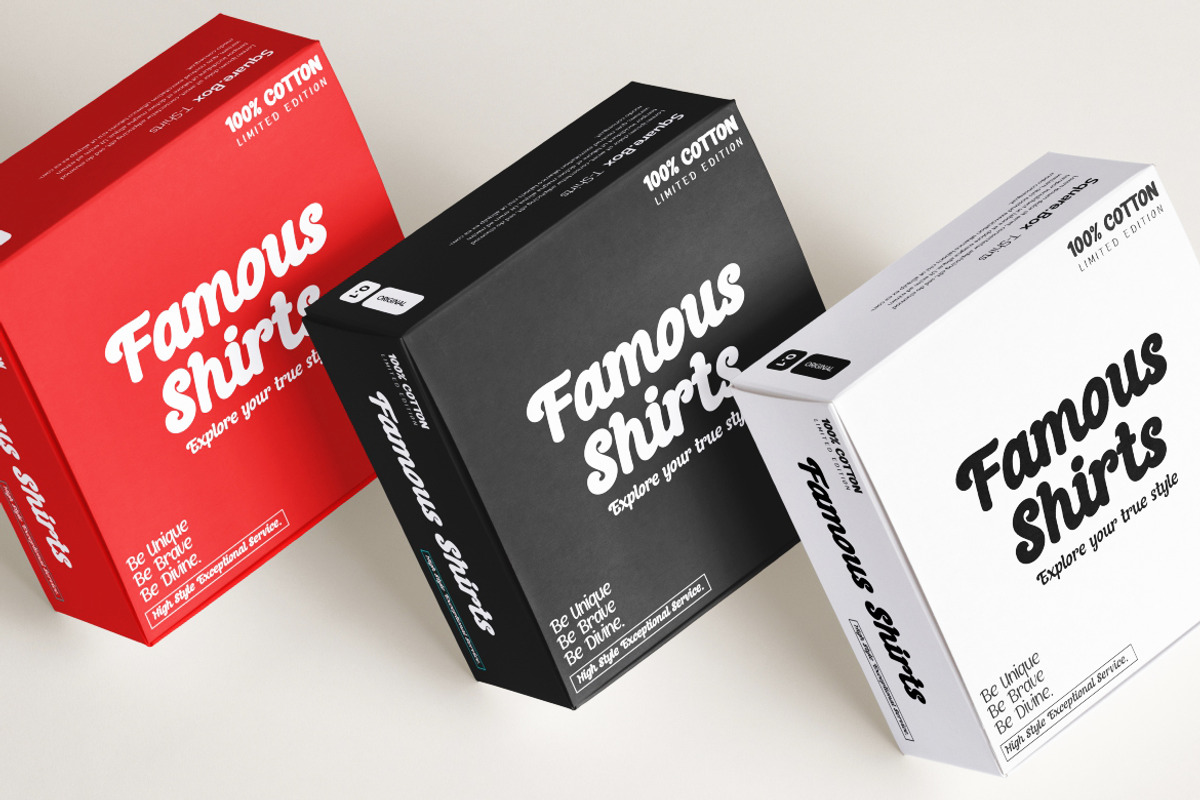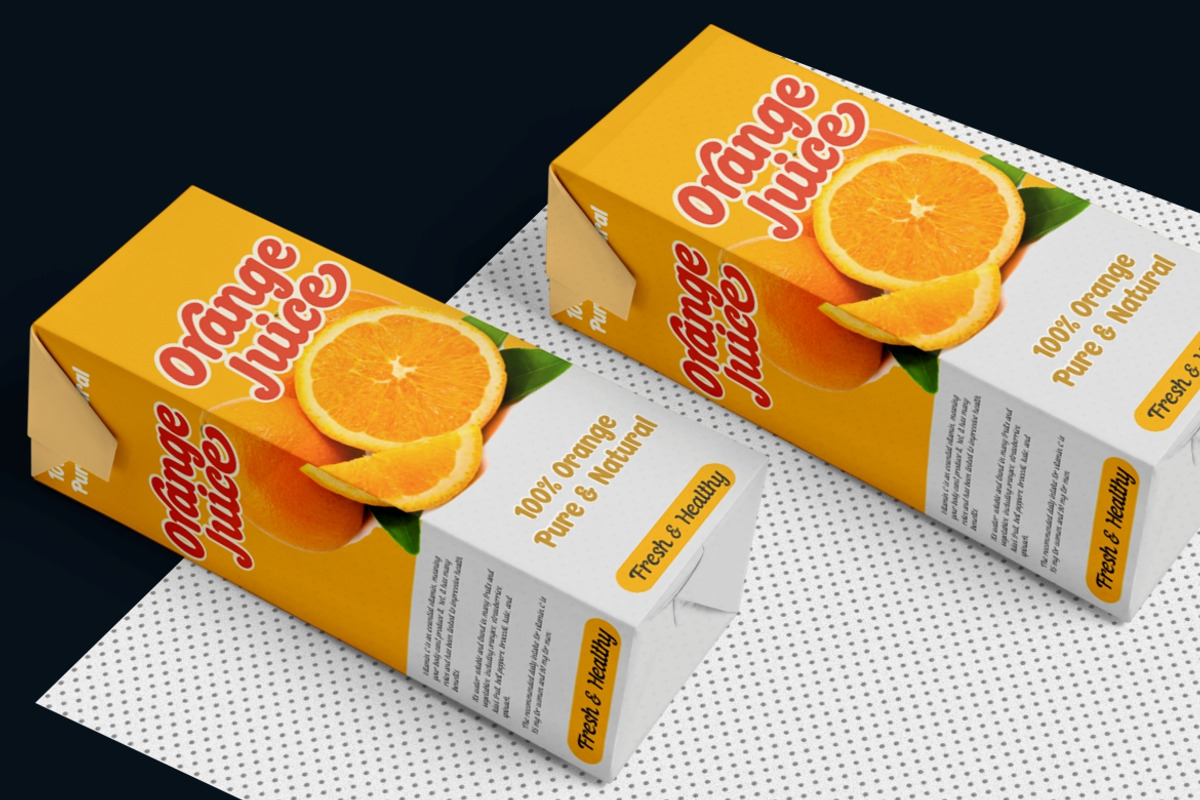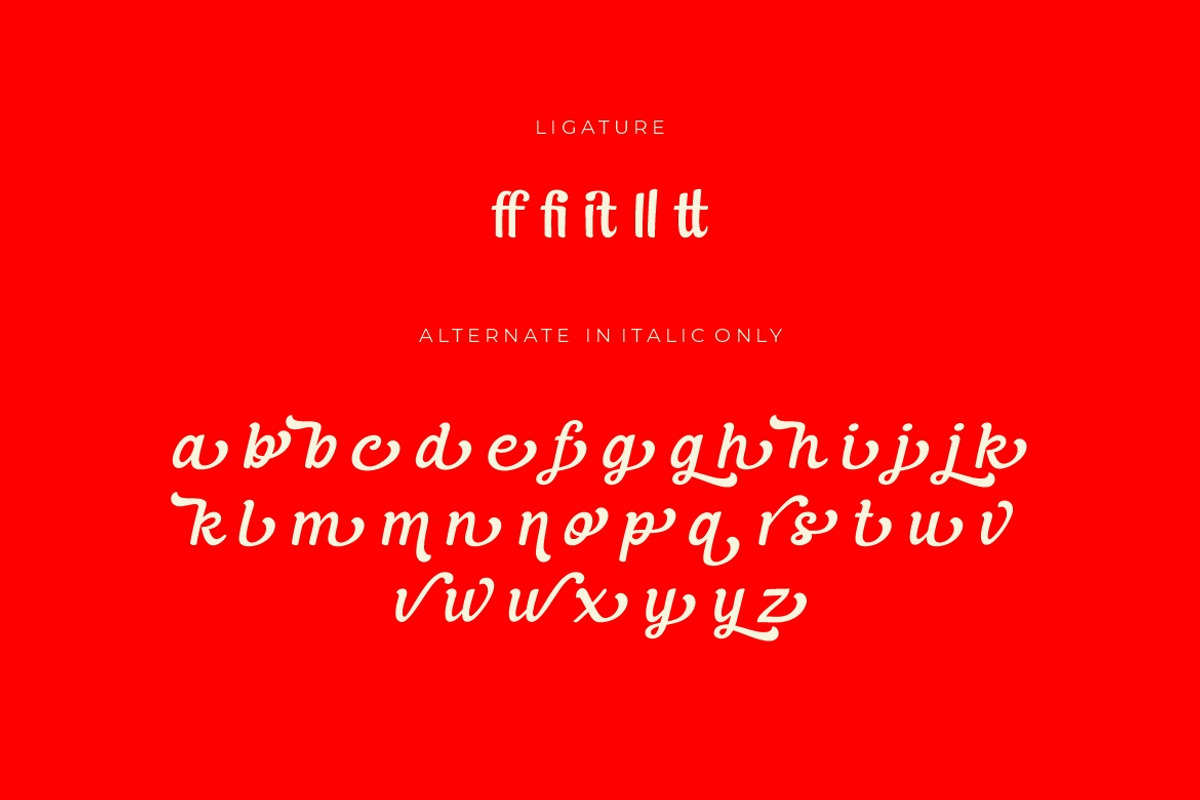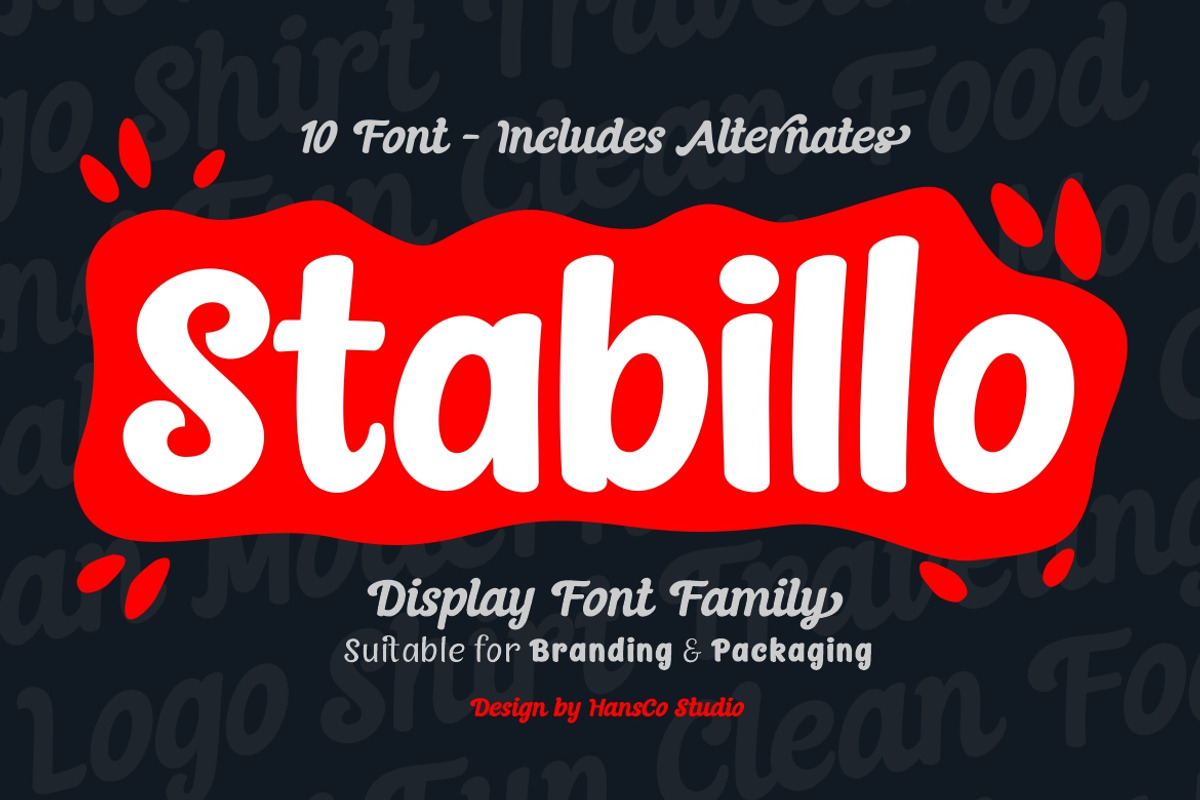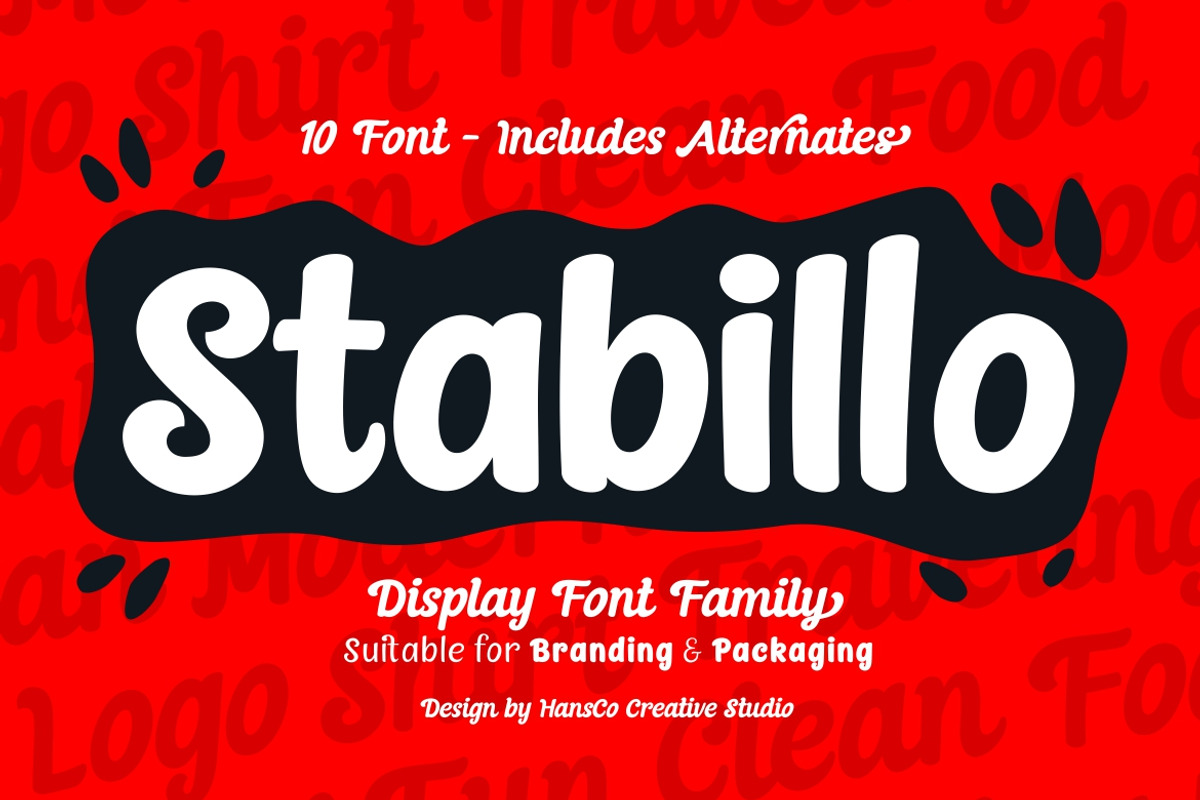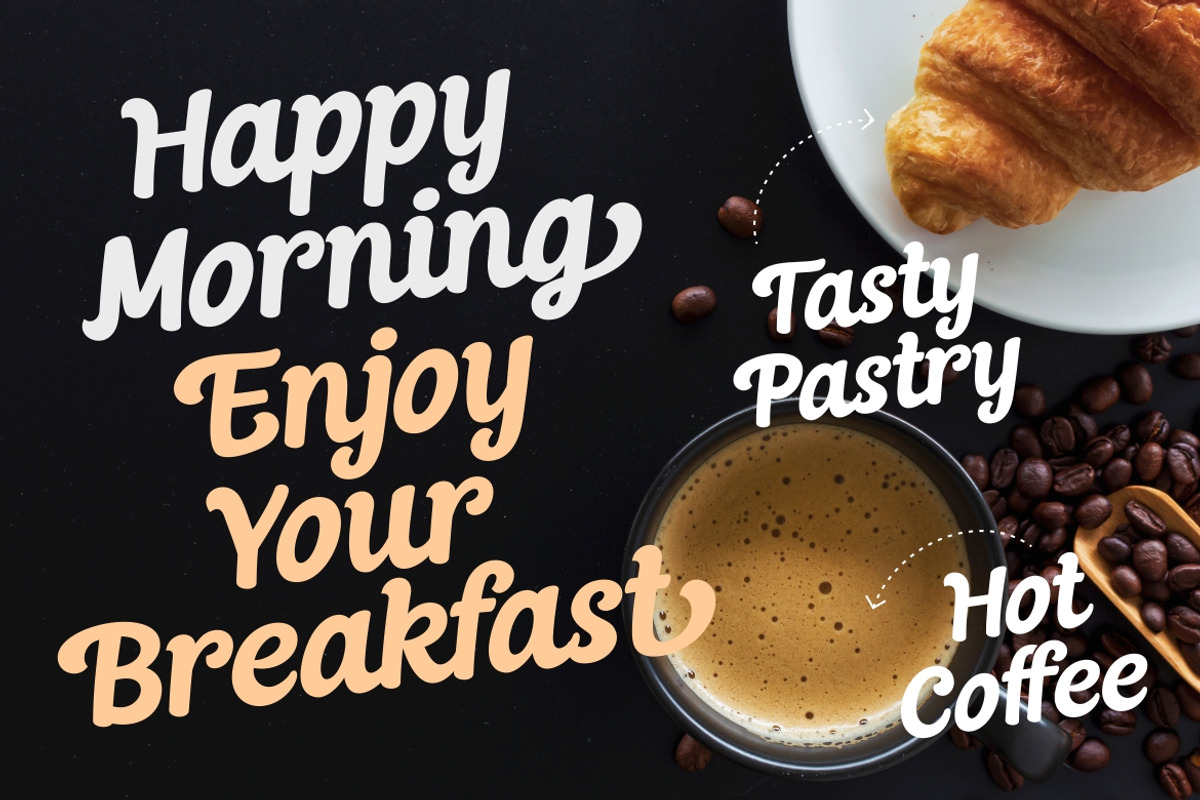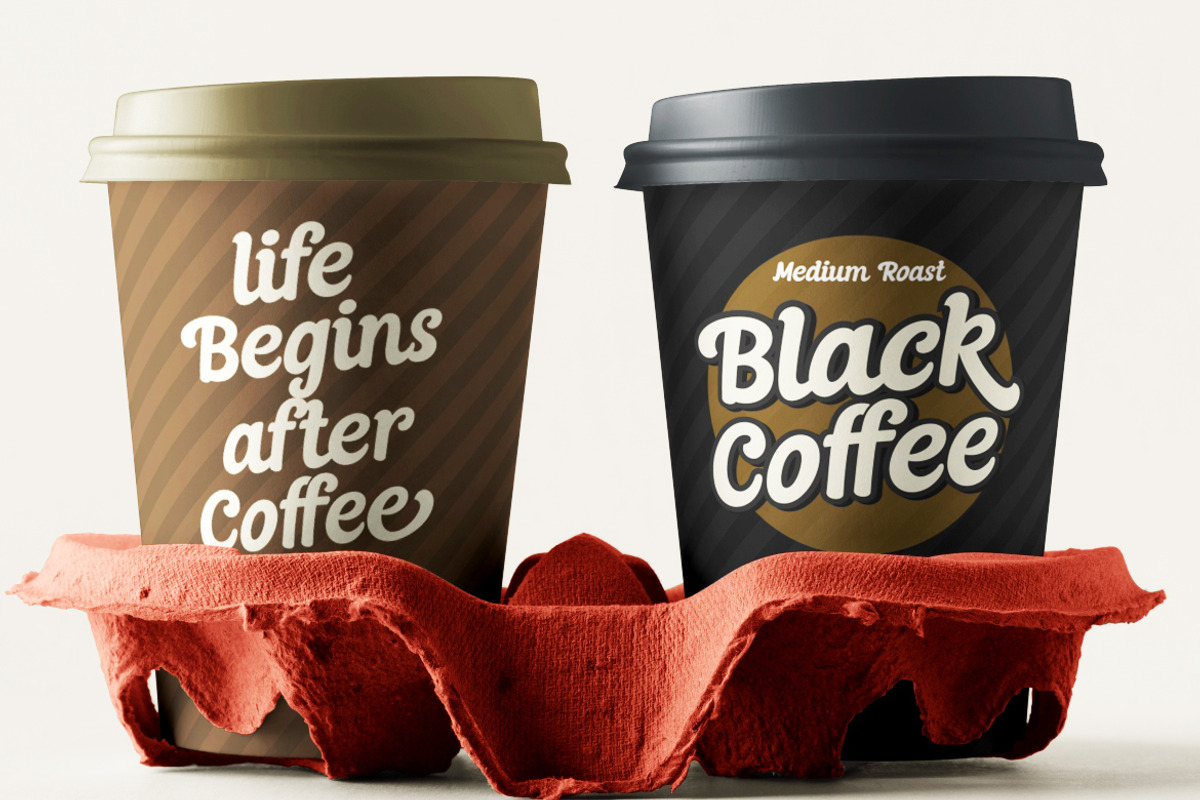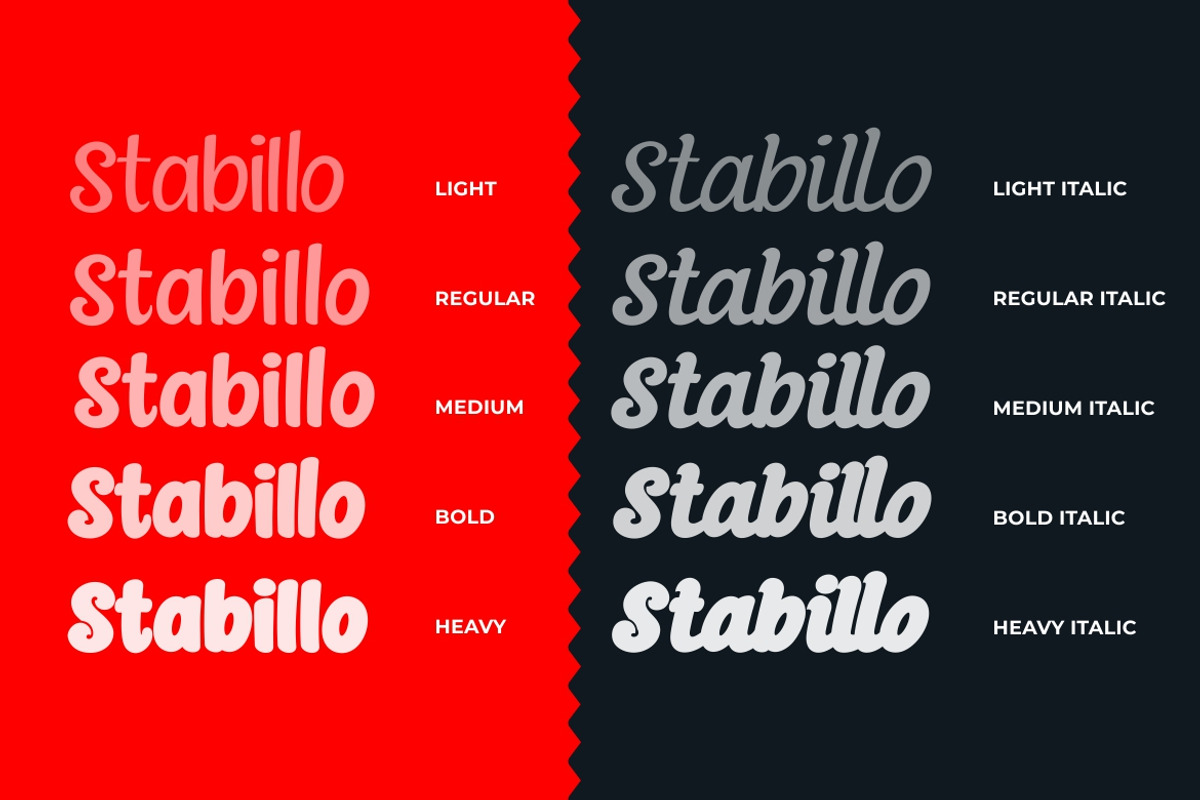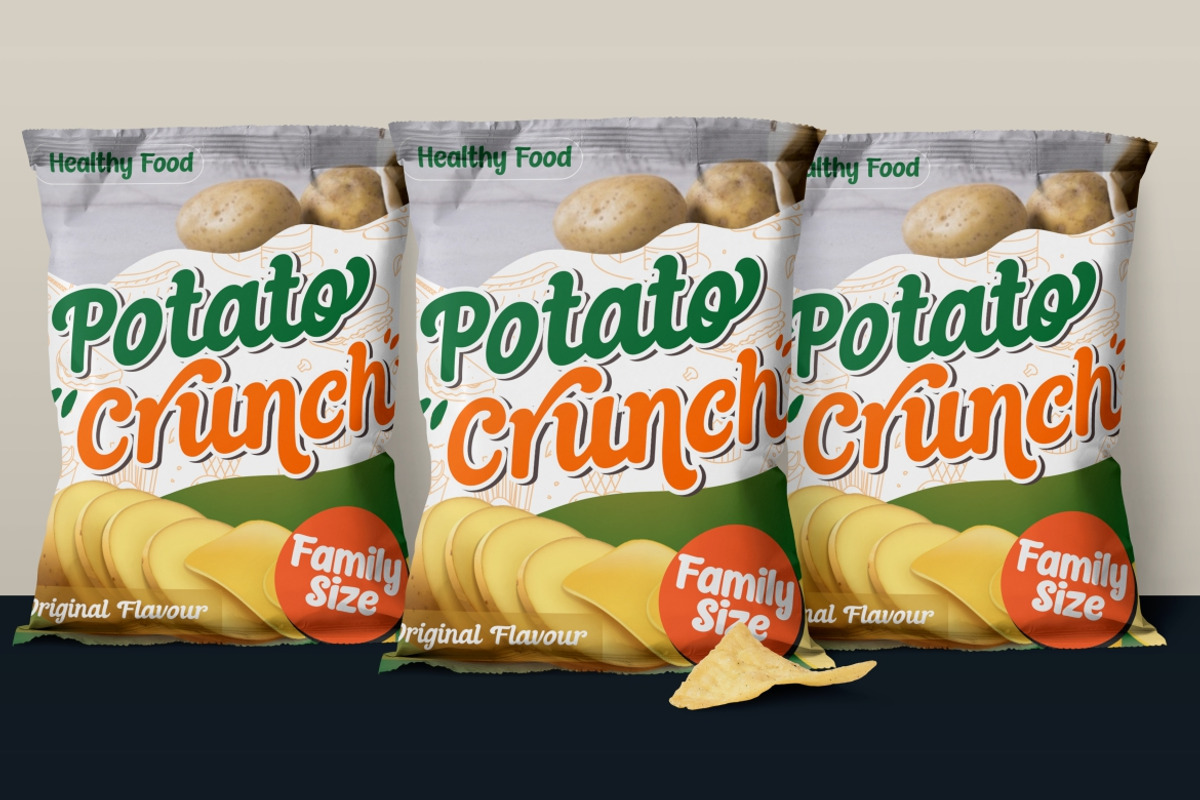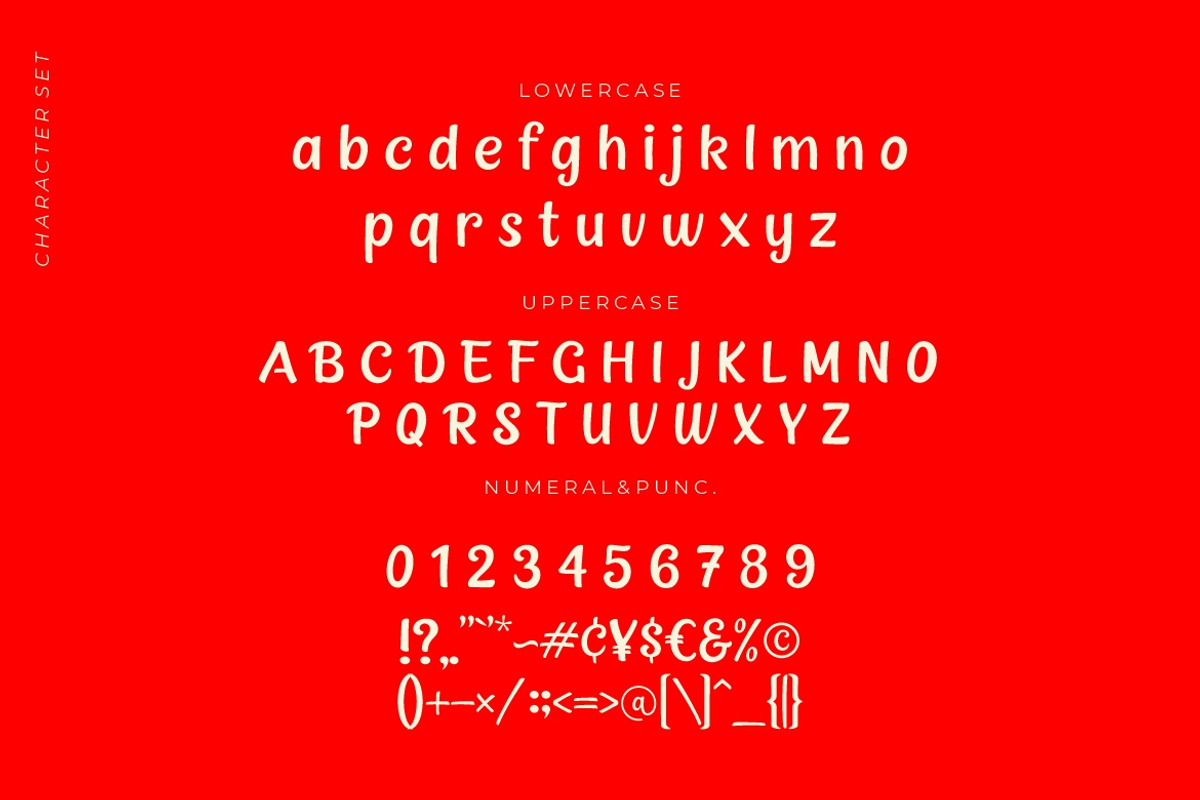
Stabillo Display Sans!
Stabillo font family is specially designed for food identity and packaging design projects. There are several alternate and ligature available in the Italic version. Due to the 10 weights font palette, you can solve a wide variety of professional problems without spending money on extra fonts for titles, subtitles, and main text.